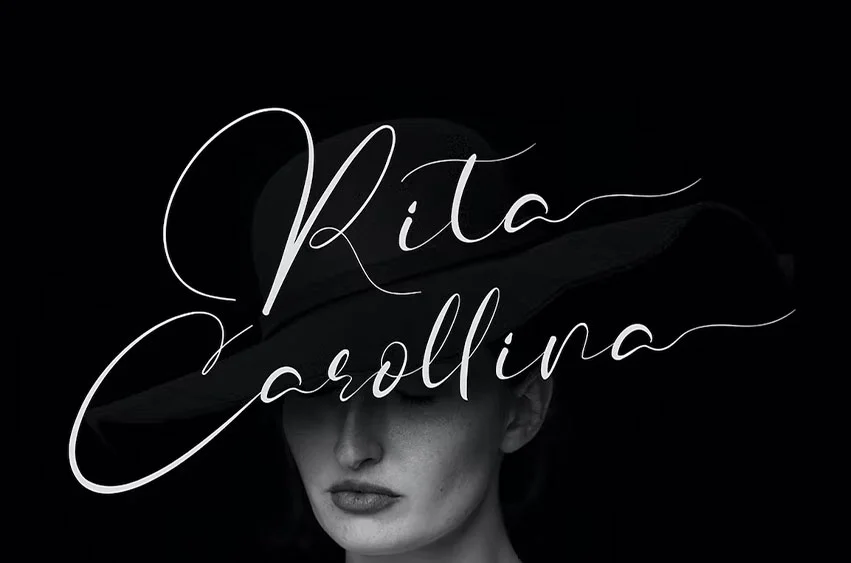
Rita Carollina Font is modern, Script font with a modern style, this font will be perfect for many different projects ex: quotes, logos, blog headers, posters, weddings, banding, fashion, apparel, letter, invitation, stationery, etc…